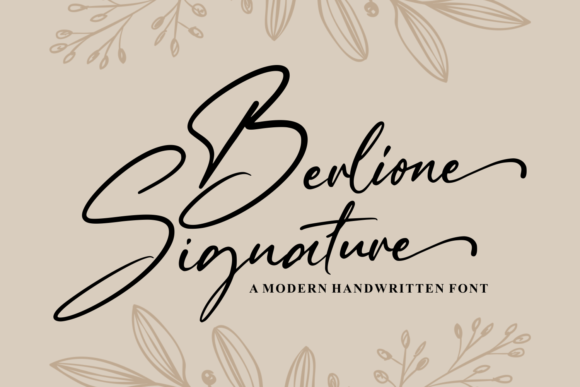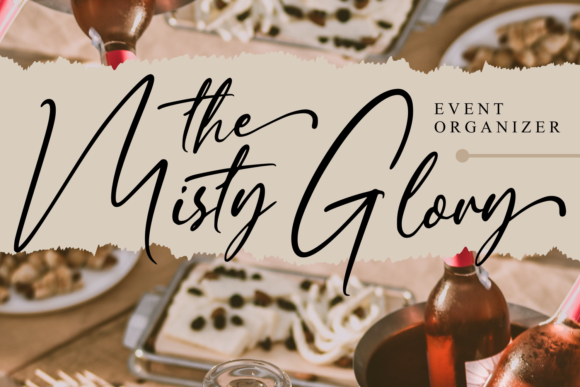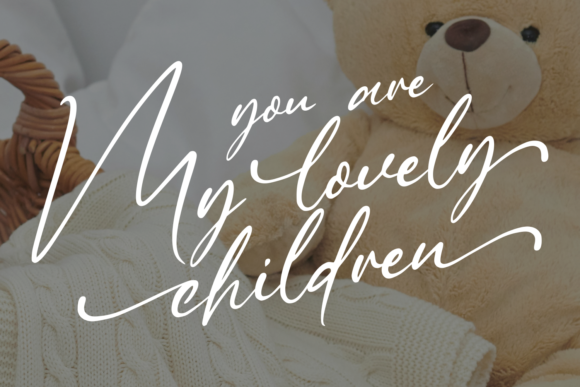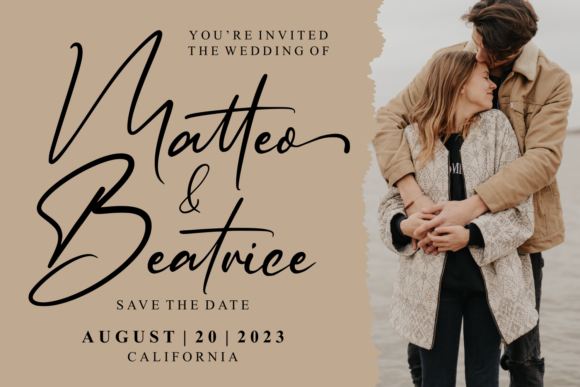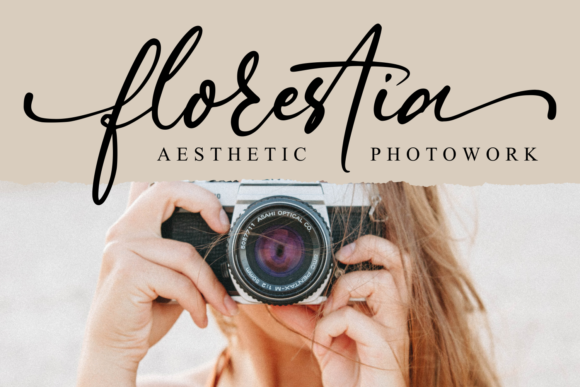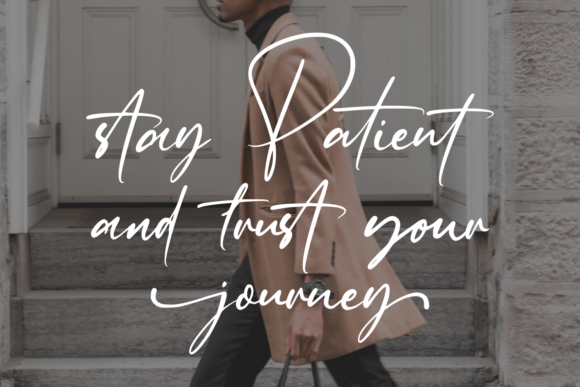
About Berlione Signature Font
Berlione Signature is a ravishing, graceful, and cursive handwritten font. It has beautiful and well-balanced characters, and as a result, it matches a wide pool of romantic designs. Add it confidently to your projects, and you will love the results! This font is PUA encoded which means you can access all of the glyphs and swashes with ease!